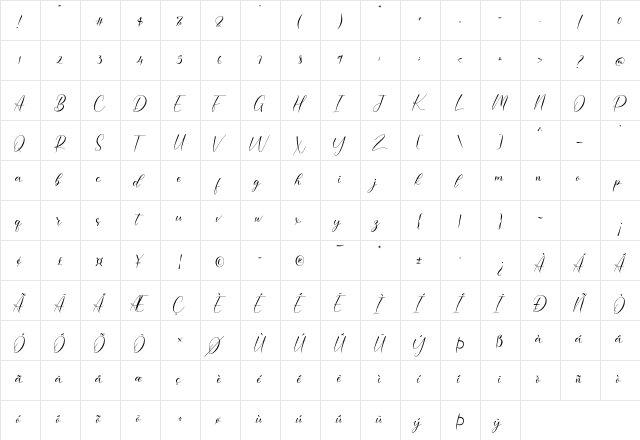
Morelove Regular
| Designer | Nissa Nana |
Design Context for Morelove Typeface
Morelove is a composed and adaptable typeface that performs quietly and consistently across a wide range of design contexts.